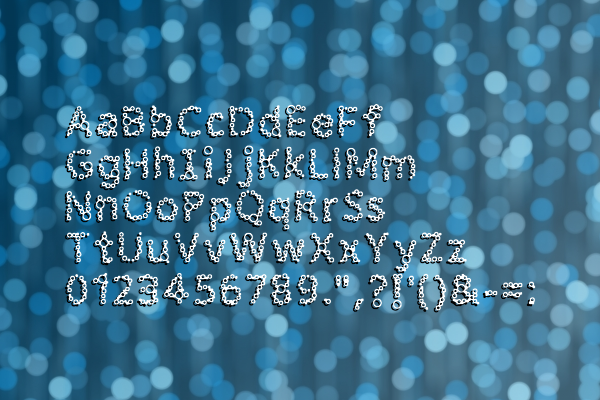
Introduction to Hey Bubba Font
Have you ever been working on a creative project, pouring your heart and soul into the design, and then – BAM! – the perfect font appears out of nowhere, taking your entire aesthetic to the next level? For designers, this moment is pure magic. It’s the moment when all the pieces fall into place, and the design just feels complete. For me, that moment happened when I stumbled upon the Hey Bubba Font – a decorative bubble based font that has since become my go-to design resource.
With its high-quality design and transparent background, the Hey Bubba Font is a versatile and valuable asset for any designer. Whether you’re working on a whimsical children’s book or a playful advertisement, this font is sure to add a touch of creativity and fun to your design. And the best part? It’s available for free download, making it an accessible and affordable addition to your design arsenal.
Key Features of Hey Bubba Font
- Unique Hand-Drawn Design: The Hey Bubba Font boasts a distinctive, hand-drawn aesthetic that adds a touch of personality to any creative project.
- Unique Character Set: This font features a unique character set, including uppercase and lowercase letters, numerals, and punctuation marks, making it ideal for creative projects that require a distinctive touch.
Honest Review: Hey Bubba Font
As a designer, I’ve had the chance to work with a variety of fonts, and I’m always on the lookout for high-quality, unique options. The Hey Bubba Font definitely caught my attention, and I was excited to see how it would perform in my creative project.
One of the things I really like about the Hey Bubba Font is its playful, whimsical feel. It’s perfect for adding a touch of personality to your design, whether it’s for a logo, brochure, or website. The font is also available as a free download, which is a definite bonus for designers on a budget.
The Hey Bubba Font features a transparent background, which makes it easy to layer over other design elements. This is a big plus in my book, as it gives me more flexibility when working on complex design projects.
- Playful, whimsical feel ✨
- Perfect for adding personality to your design ✨
- Transparent background ✨
- May not be suitable for formal or professional designs ⚠️
- Limited font styles and variations ⚠️
Overall, I’m really impressed with the Hey Bubba Font. It’s a great addition to any designer’s toolkit, and I think it would be a fantastic choice for anyone looking to add a little personality to their design.
Some common use cases for the Hey Bubba Font include creating social media graphics, designing logos, and adding text to photographs. With its high-quality design and transparent background, the Hey Bubba Font is an excellent resource for any creative project.